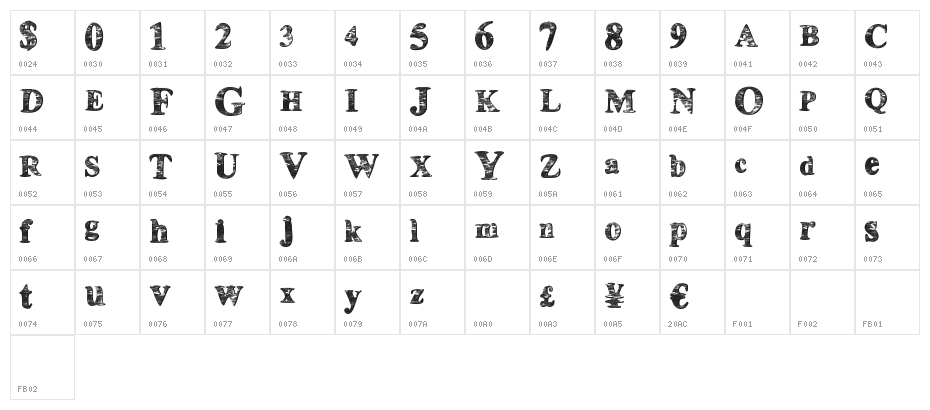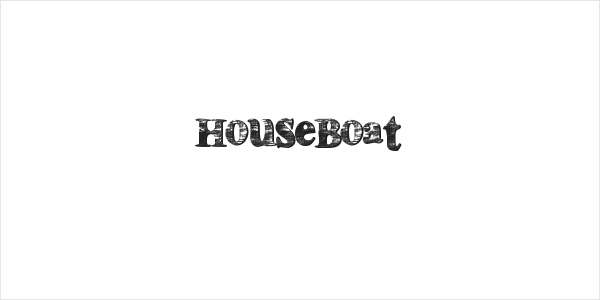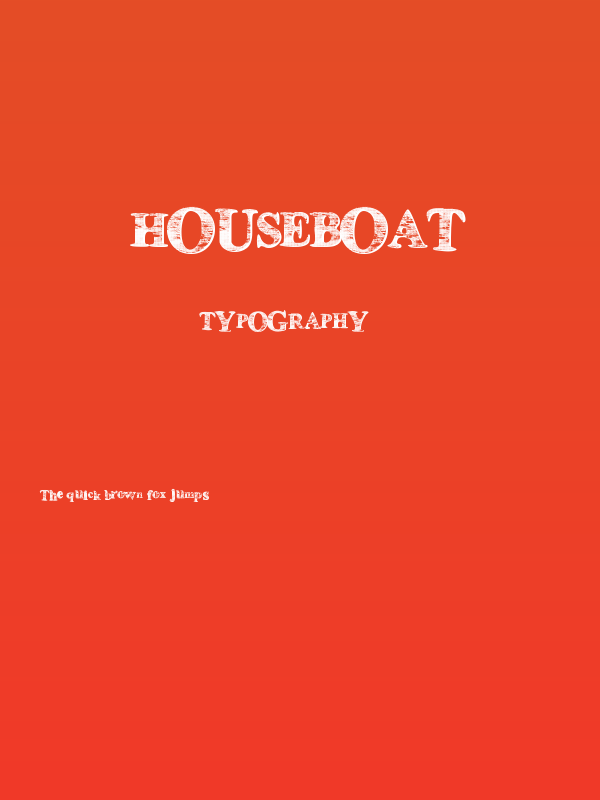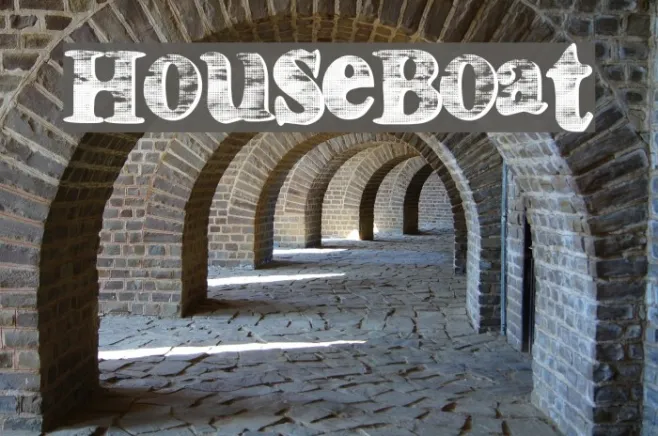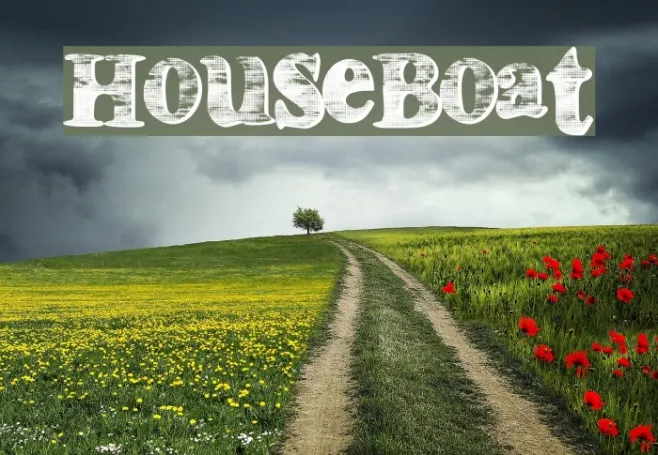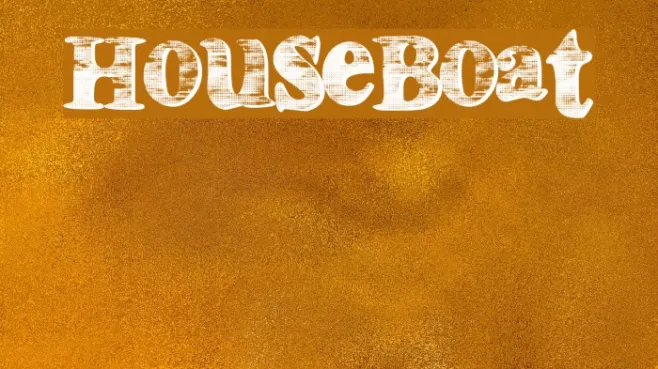
HouseBoat Font
HouseBoat Description
This font features a bold, textured design with a distressed, grunge-like appearance. Each character is filled with a crosshatch pattern that gives it a unique, vintage feel. The letters are slightly condensed, with varying stroke widths that add to the font's dynamic and eye-catching style. The uppercase and lowercase letters maintain a consistent style, while the numerals and special characters complement the overall aesthetic. This font is ideal for projects that require a bold statement with a touch of retro flair.
| Proposed Projects | Ideal for posters, album covers, branding materials, and any design that requires a bold, vintage look. |